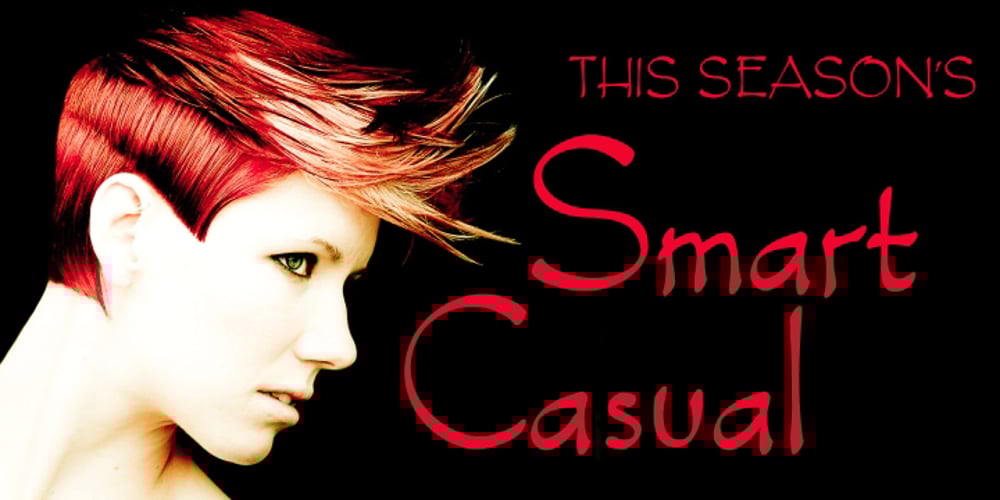
Smart Casual
Smart Casual font
Smart Casual Font Family was designed by Merle Scholtz and published by Scholtz Fonts. Smart Casual contains 2 styles and family package options. The name “Smart Casual” says it all. This is the font to use when you want to create that smart impression without being too formal. It is based on the font “Black Tie” but it is less formal than “Black Tie”. It conveys an impression of relaxed elegance without being either sloppy or too intimate. Smart Casual is ideal for invitations to stylish but relaxed events, for advertisements that are intended to create that special ambience, for posters and for announcements. Smart Casual has a full character set and has been carefully letter-spaced and kerned. It comes in two styles: Baseline and Staggered. In “Baseline” all characters refer to the same baseline (the lower part of the characters are in line), while in “Staggered” the capitals are placed lower than the lower case characters, creating a slightly more dramatic, yet formal and retro look.